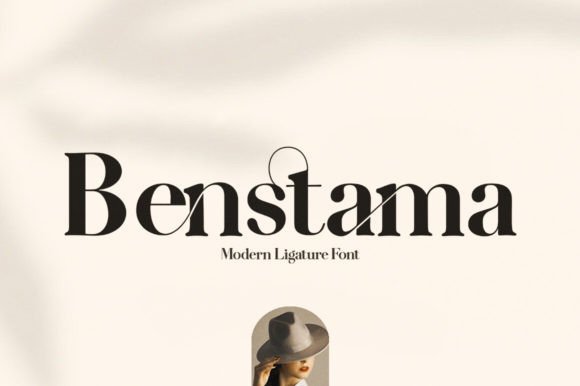
Introducing Benstama Font, the epitome of elegance and boldness in the world of serif fonts. Crafted by the renowned BrandType, this font is designed to captivate and inspire. Whether you're a blogger, a designer, or an aspiring artist, Benstama Font is the perfect choice for adding a touch of sophistication to your creations.
With its versatile style, Benstama Font effortlessly adapts to any project, making it the best font for blog headlines. Imagine the impact it will have on your readers as they are greeted by the stunning beauty of this font. Its intricate details and clean lines will command attention, instantly drawing them into your content.
But Benstama Font is not limited to just blog headlines. Its charm extends to various creative endeavors. Are you planning a wedding? With Benstama Font, your wedding invitations will exude elegance and refinement, setting the tone for your special day. Its boldness will make a statement, leaving a lasting impression on your guests.
Looking to create beautiful stationary art? Benstama Font is your artistic companion. Its timeless appeal will elevate your designs, transforming them into true masterpieces. From wedding stationery to personalized gifts, the possibilities are endless when you unleash your creativity with Benstama Font.
Social media is a powerful platform for self-expression, and with Benstama Font, your posts will be impossible to ignore. Capture the attention of your followers as you sprinkle your feed with compelling quotes, striking captions, and engaging visuals, all perfectly complemented by the elegance of Benstama Font.
Beyond its aesthetic allure, Benstama Font is also a practical choice. Its legibility ensures that your message is conveyed effortlessly, leaving no room for confusion. With this font, you can strike the perfect balance between style and readability, ensuring that your audience remains captivated by your content.